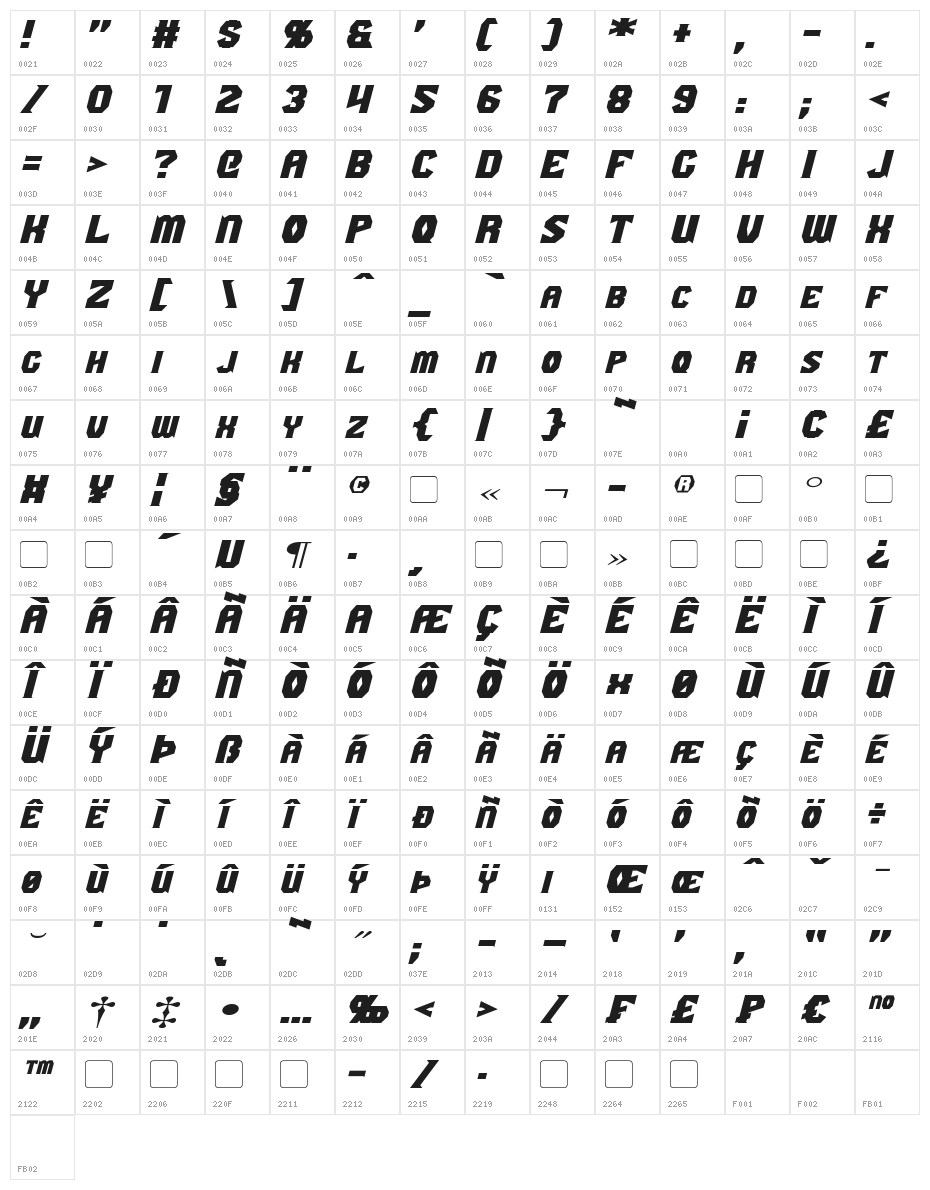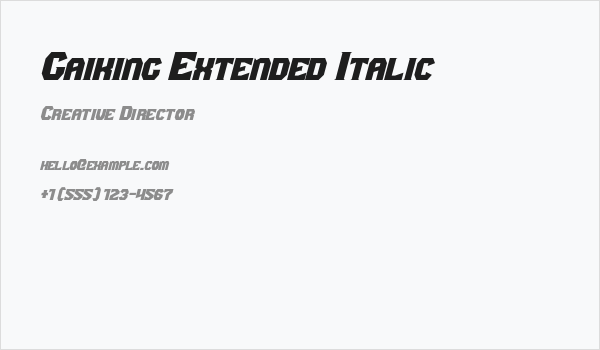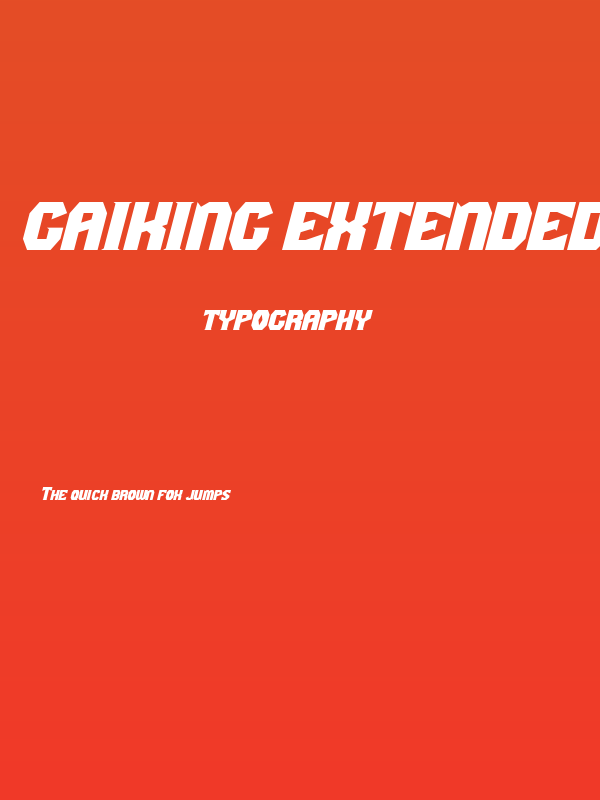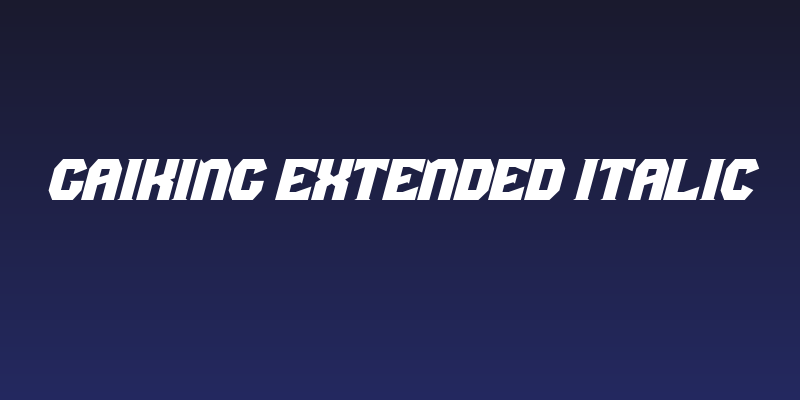
Gaiking Extended Italic Font
Gaiking Extended Italic Description
This font features a bold, angular design with a strong, dynamic presence. The characters are sharply cut with a futuristic flair, making them stand out with their unique geometric shapes. The italic style adds a sense of motion and speed, enhancing its modern appeal. The extended width gives the font a commanding presence, suitable for attention-grabbing headlines. The characters are tightly spaced, contributing to its compact and impactful look. The high contrast in stroke thickness further emphasizes its boldness, making it ideal for projects that require a strong visual impact.
| Proposed Projects | Ideal for use in sci-fi themed posters, video game titles, sports branding, and dynamic advertising campaigns. |